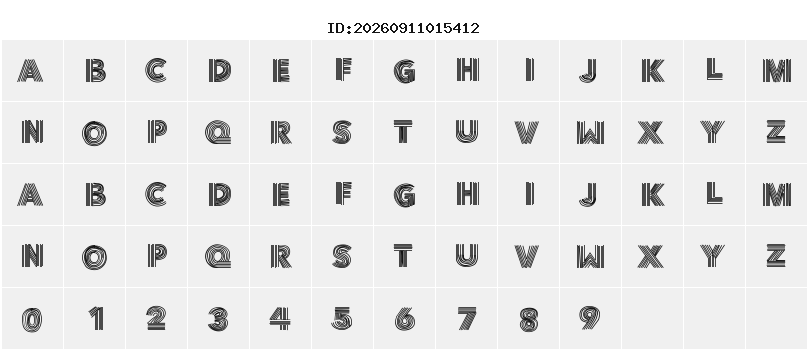
Vibe Preview
• Font Name: Vibe
• Full Font Name: Vibe
About Vibe.ttf
Vibe.ttf is a modern, elegant sans-serif font designed for ultimate readability and visual harmony. Perfect for branding, headlines, web design, and print materials.